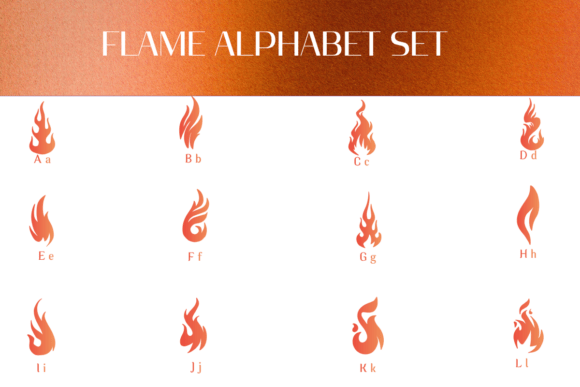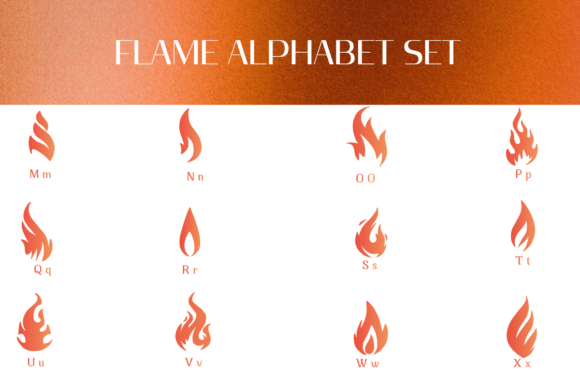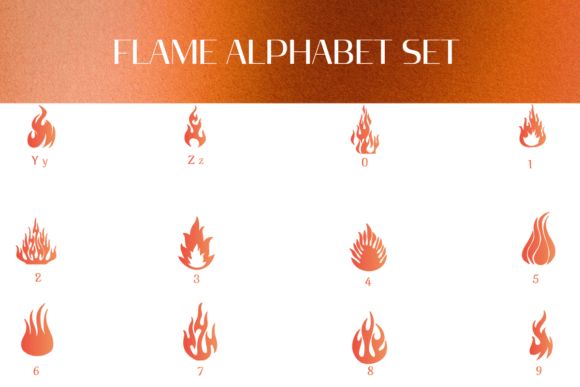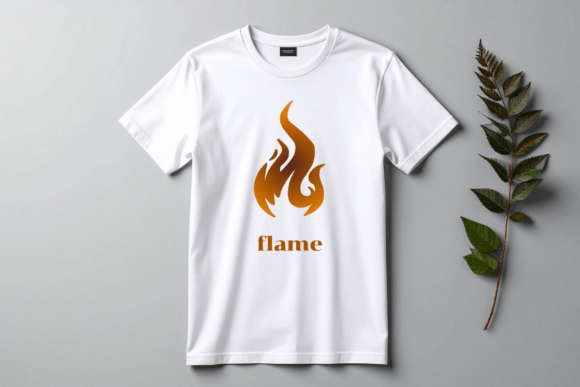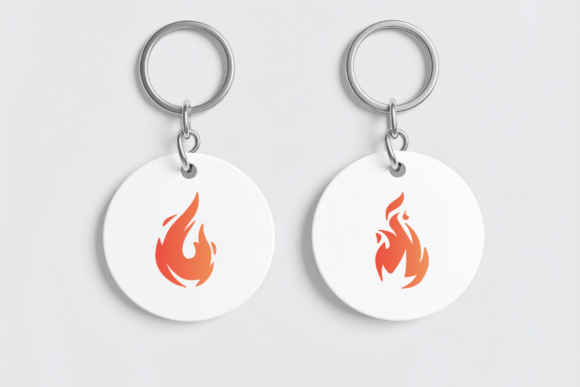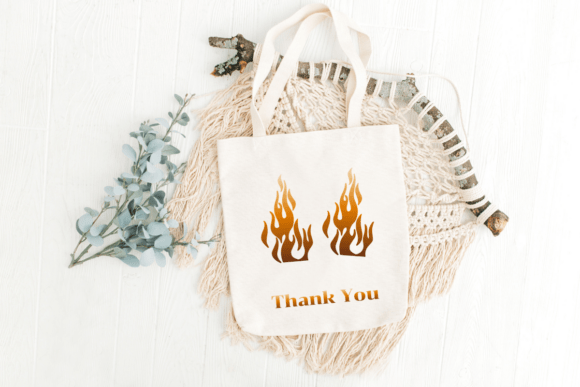
Ignite Your Creativity with the Flame Alphabet Set Font
Are you looking for a font that can add a spark to your designs? Look no further than the Flame Alphabet Set, a high-energy dingbats font that captures a dynamic and incendiary soul. This collection features a comprehensive set of stylized fire icons, ranging from flickering embers and rising wisps to roaring bonfires and sharp, aggressive blazes. With its rhythmic organic curves and bold orange silhouettes, the Flame Alphabet Set is the premier choice for designers and crafters who want to add a touch of heat to their work.
Unleash Your Creativity with Stylized Fire Icons
The Flame Alphabet Set is more than just a font – it’s a collection of stylized fire icons that can be used to add a dynamic touch to your designs. The set features a wide range of icons, from gentle flickering embers to intense, roaring bonfires. Each icon is carefully crafted to have a unique and organic feel, with bold orange silhouettes that seem to leap off the page. Whether you’re designing a logo for an extreme sports brand, a barbecue restaurant, or a hot sauce packaging, the Flame Alphabet Set has got you covered.
Perfect for High-Impact Designs
The Flame Alphabet Set is perfect for designers and crafters who want to create high-impact designs that grab attention. The font’s bold and dynamic style makes it ideal for use in extreme sports branding, barbecue and grill restaurant logos, hot sauce packaging, and social media graphics. The font’s stylized fire icons can add a touch of energy and intensity to your designs, making them perfect for projects that require a bold and daring approach.
Rhythmic Organic Curves and Bold Orange Silhouettes
One of the standout features of the Flame Alphabet Set is its rhythmic organic curves and bold orange silhouettes. The font’s curves are smooth and fluid, giving the icons a natural and effortless feel. The bold orange silhouettes add a touch of warmth and energy to the icons, making them perfect for designs that require a dynamic and attention-grabbing approach. The combination of curves and silhouettes creates a unique and visually appealing style that is sure to ignite your creativity.
Use Cases for the Flame Alphabet Set
The Flame Alphabet Set is a versatile font that can be used in a wide range of design projects. Here are some use cases to get you started:
- Extreme Sports Branding: Use the Flame Alphabet Set to create bold and dynamic logos for extreme sports brands, such as skateboard companies, BMX teams, or motocross clubs.
- Barbecue and Grill Restaurant Logos: Add a touch of heat to your restaurant’s logo with the Flame Alphabet Set. The font’s stylized fire icons are perfect for barbecue and grill restaurants, food trucks, or cookout events.
- Hot Sauce Packaging: Spice up your hot sauce packaging with the Flame Alphabet Set. The font’s bold and dynamic style is perfect for adding a touch of heat to your product’s label.
- Social Media Graphics: Use the Flame Alphabet Set to create high-impact social media graphics that grab attention. The font’s stylized fire icons are perfect for creating engaging and dynamic graphics for Instagram, Facebook, or Twitter.
Get Ready to Ignite Your Creativity
The Flame Alphabet Set is a powerful font that can add a spark to your designs. With its comprehensive set of stylized fire icons, rhythmic organic curves, and bold orange silhouettes, this font is perfect for designers and crafters who want to create high-impact designs. Whether you’re designing a logo, packaging, or social media graphics, the Flame Alphabet Set is the premier choice for adding a touch of heat to your work. So why wait? Get ready to ignite your creativity with the Flame Alphabet Set Font.